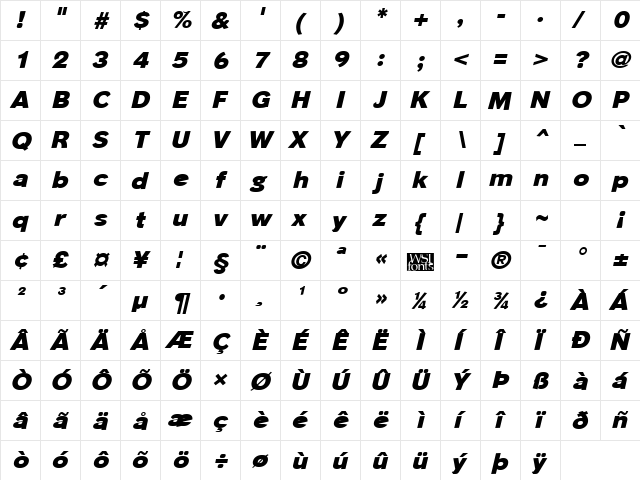
PhinsterHeavy Italic
Design Context for PhinsterHeavy Typeface
PhinsterHeavy is a composed and adaptable typeface that performs quietly and consistently across a wide range of design contexts. The dynamic lean of this cut emphasises speed and emphasis in any layout.
Pro Tip: Use PhinsterHeavy for emphasis, pull quotes, and subheadings where its slanted energy can add rhythm to the layout.